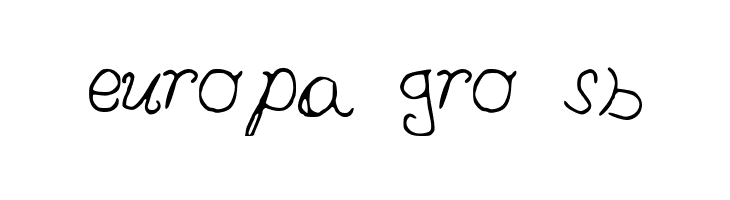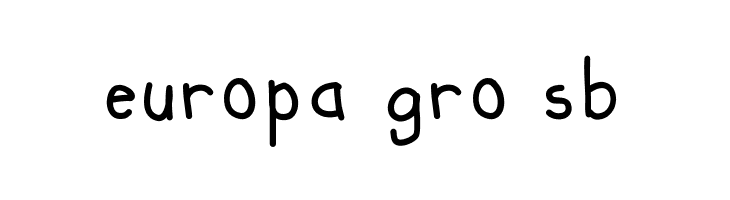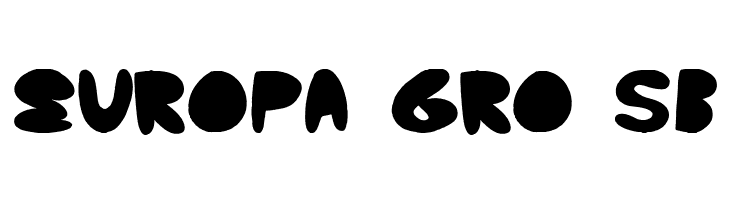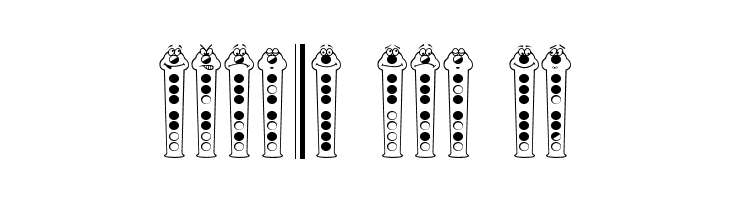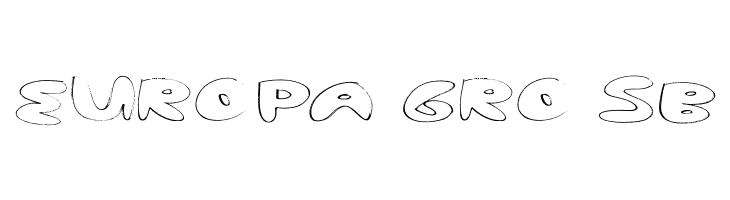
• PedersenFont Medium
• AmateurComic
• Kiddish
A playful handwritten font with a whimsical and friendly style.
• Rita Mouse
• RitaMouse
• Yummy Nubs
A playful, bold font with rounded, bubbly characters.
• Janda Spring Doodles
A whimsical collection of spring and Easter-themed doodles and decorative text.
• RecorderFaces
• yum nub extended
A playful, hand-drawn font with a bold, cartoonish style.
• tentenhiragana
A playful, dot-based decorative font inspired by Japanese Hiragana.